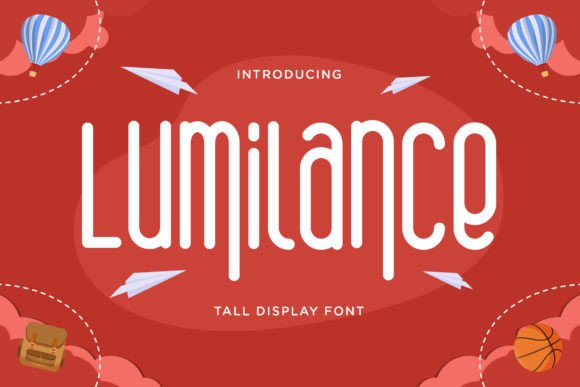
Prepare to be mesmerized by the Lumilance Font, a breathtaking display font that will captivate your designs with its enchanting charm. This meticulously crafted font exudes an aura of down-to-earth elegance, readability, and versatility that will leave you spellbound.
Unleash your creativity and let Lumilance's graceful lines and elegant curves elevate your designs to new heights. Its versatility knows no bounds, allowing you to effortlessly adorn your projects with a touch of timeless sophistication.
Imagine the impact it will make on your social media posts, as your followers are drawn to the eye-catching headlines that Lumilance effortlessly creates. Watch in awe as it transforms your website banners into captivating masterpieces, inviting visitors to delve deeper into your world.
But Lumilance's allure extends far beyond digital realms. Its beauty transcends the screen, gracing print designs with a touch of understated luxury. Envision your brochures, flyers, and invitations adorned with Lumilance's exquisite characters, leaving a lasting impression on your audience.